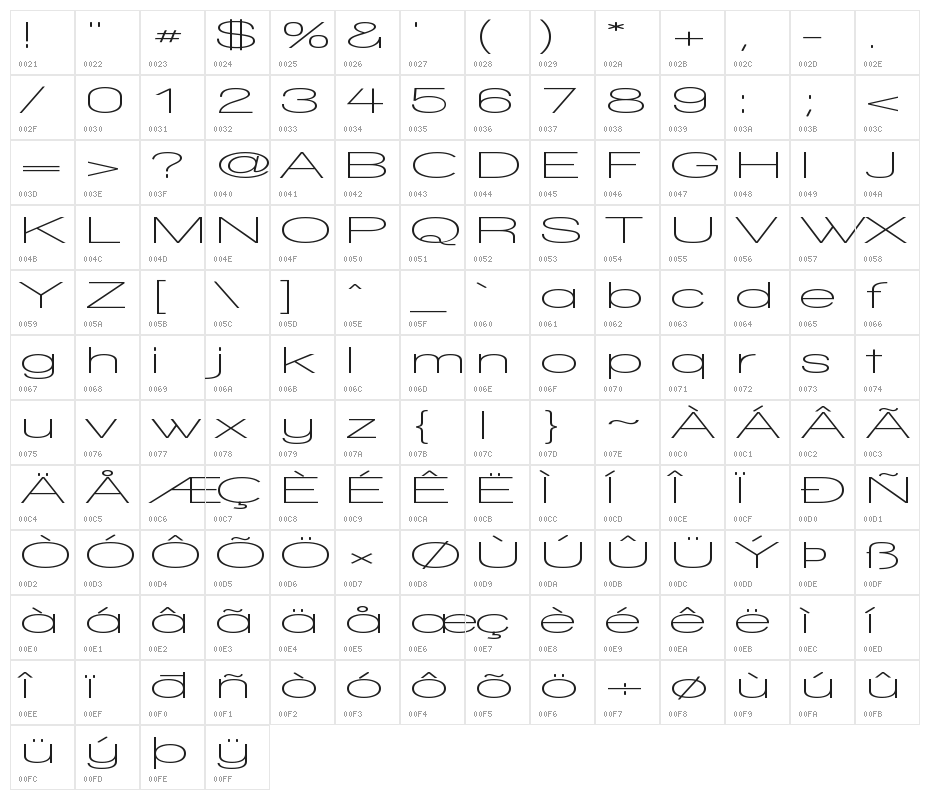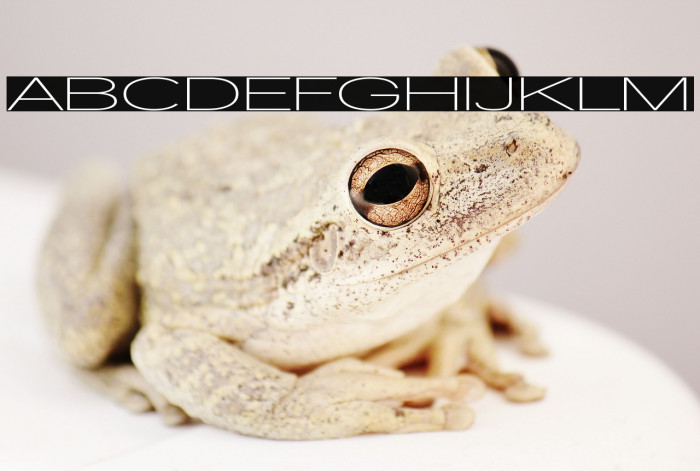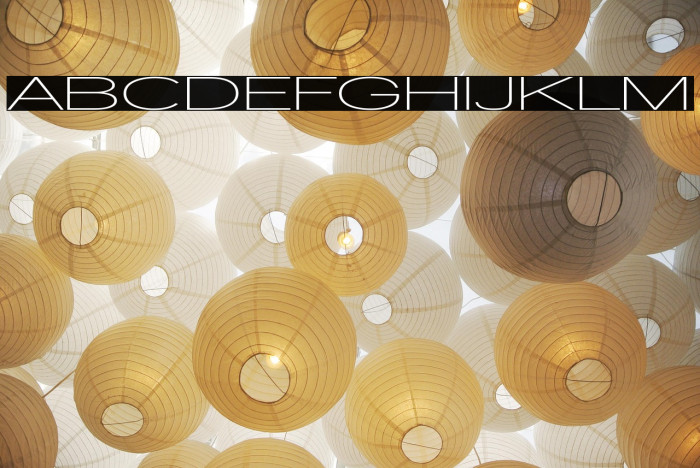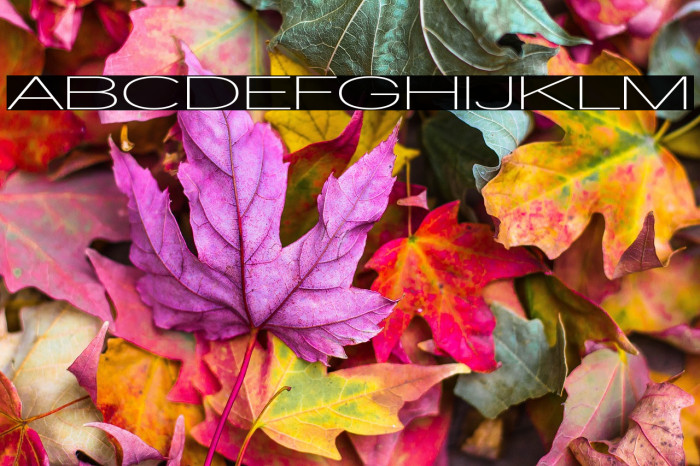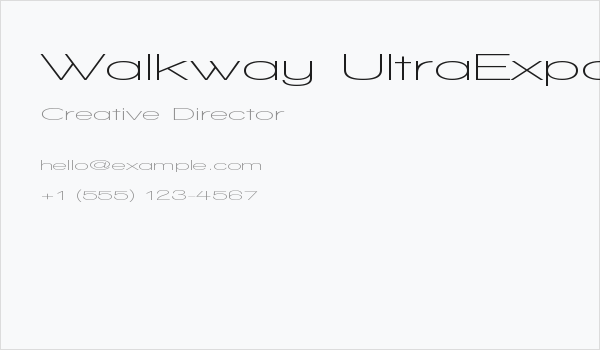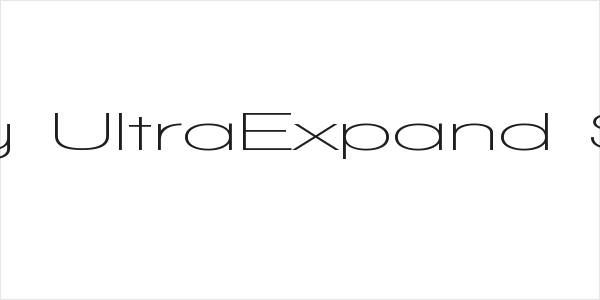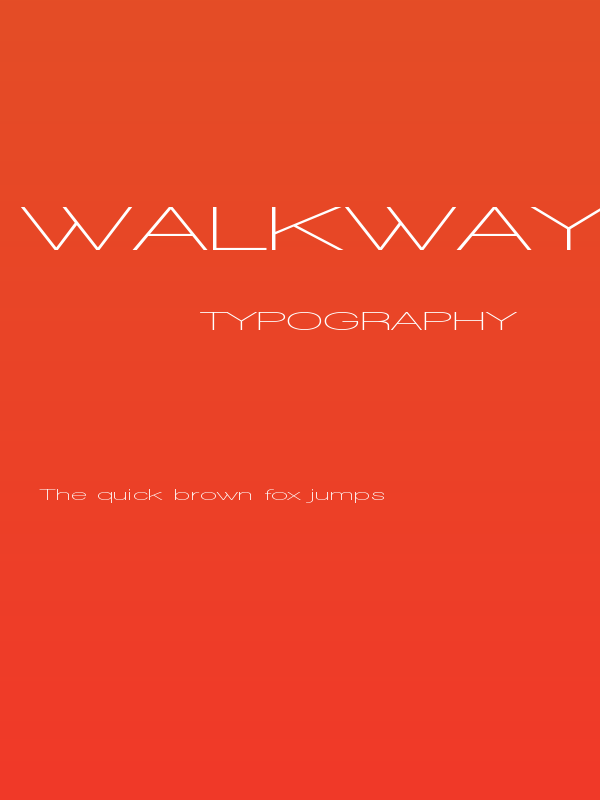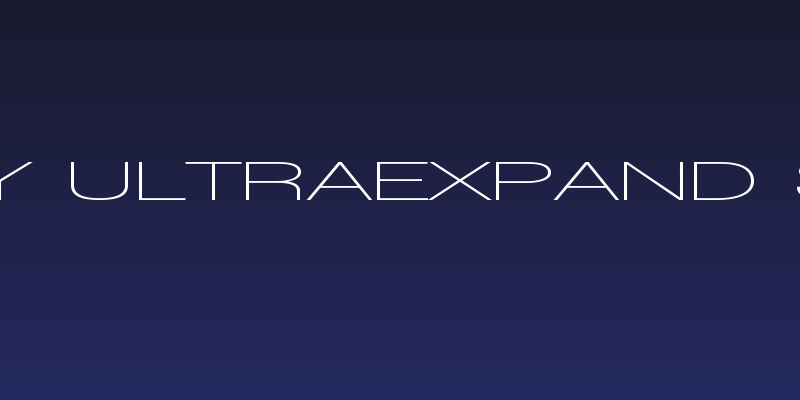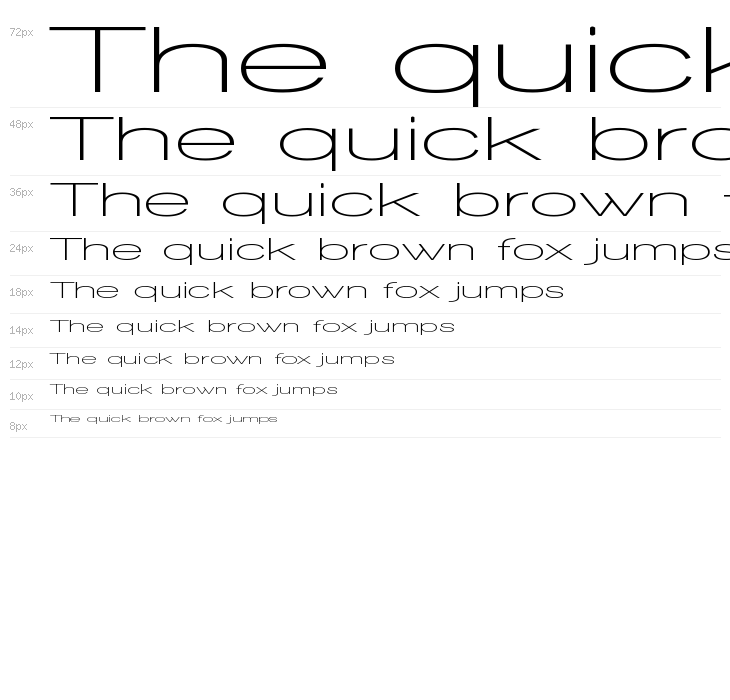
Walkway UltraExpand SemiBold Font
This font features a sleek, ultra-expanded style with semi-bold weight, offering a modern and minimalist aesthetic. The characters are clean and geometric, with uniform stroke widths that convey a sense of balance and precision. The uppercase letters are tall and commanding, while the lowercase letters maintain a consistent height, enhancing readability. The numerals are distinct and align well with the overall design, making them suitable for various applications. Special characters are elegantly integrated, maintaining the font's cohesive appearance. This font's expansive width and semi-bold weight make it ideal for creating impactful visual statements.
| Use Case | Headlines, Branding, Posters |
| Proposed Projects | Ideal for branding, headlines, posters, and modern web design projects. |